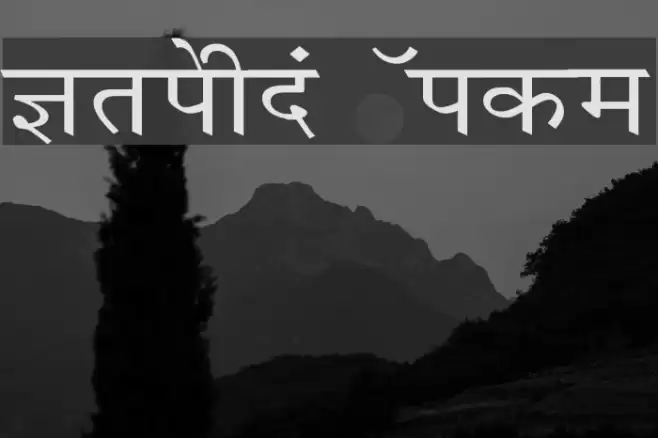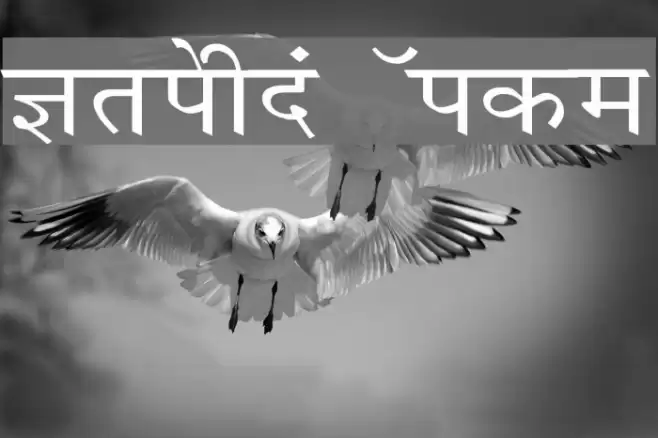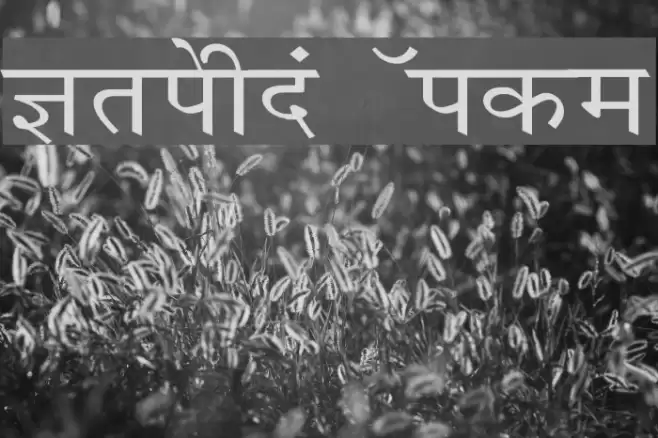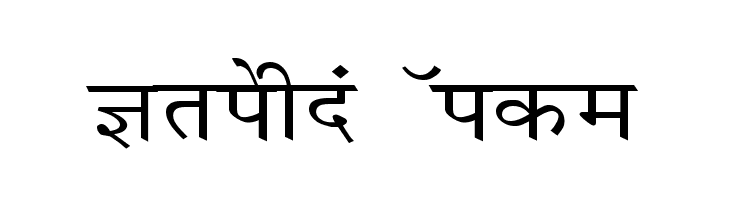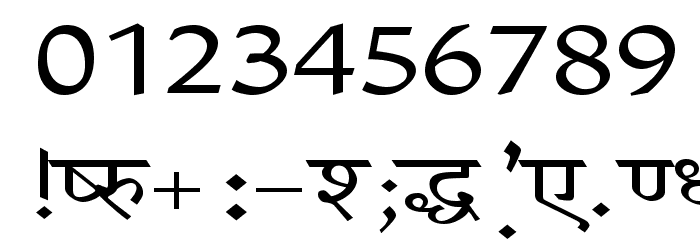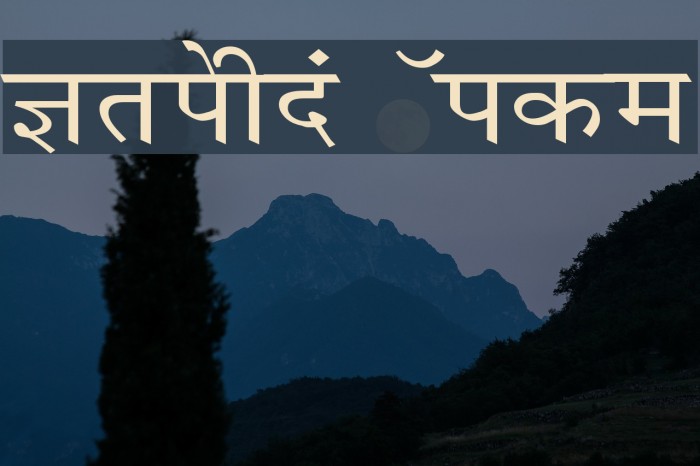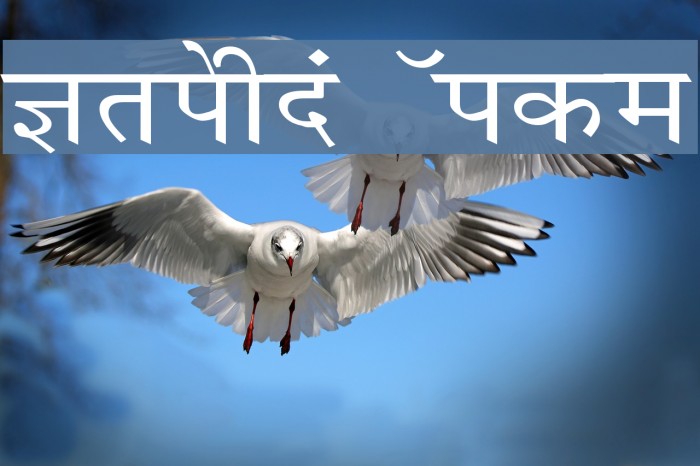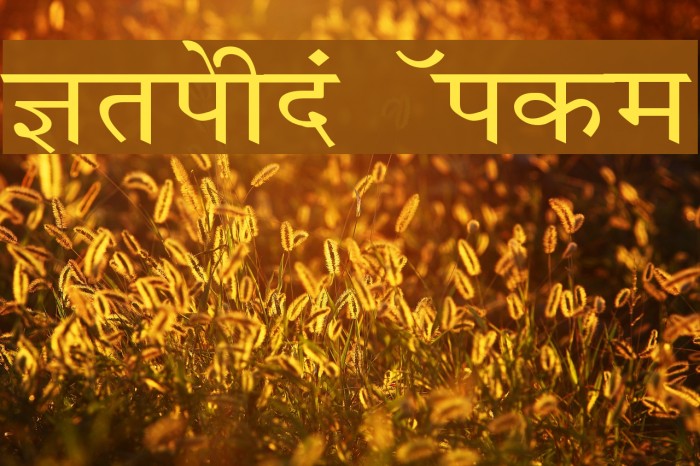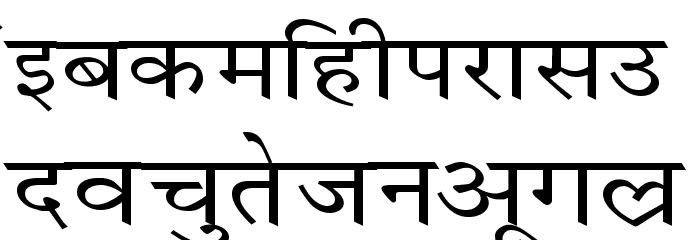
Krishna Wide Font
Krishna Wide Description
This font is a Devanagari script with a modern and clean design. It features a balanced structure with consistent stroke widths, making it highly legible. The characters are well-proportioned, with a slight emphasis on horizontal strokes, giving it a wide appearance. The numerals are clear and distinct, matching the style of the script. Special characters are included, maintaining the overall aesthetic. This font is suitable for both digital and print media, offering versatility in various applications.
A modern, wide Devanagari script with clean lines and balanced proportions from Uncategorized fonts.
- Proposed Projects: Ideal for use in educational materials, signage, digital interfaces, and print publications requiring a clear and modern Devanagari script.
- Width: Expanded
- Use Case: Headlines, Body text, Educational materials